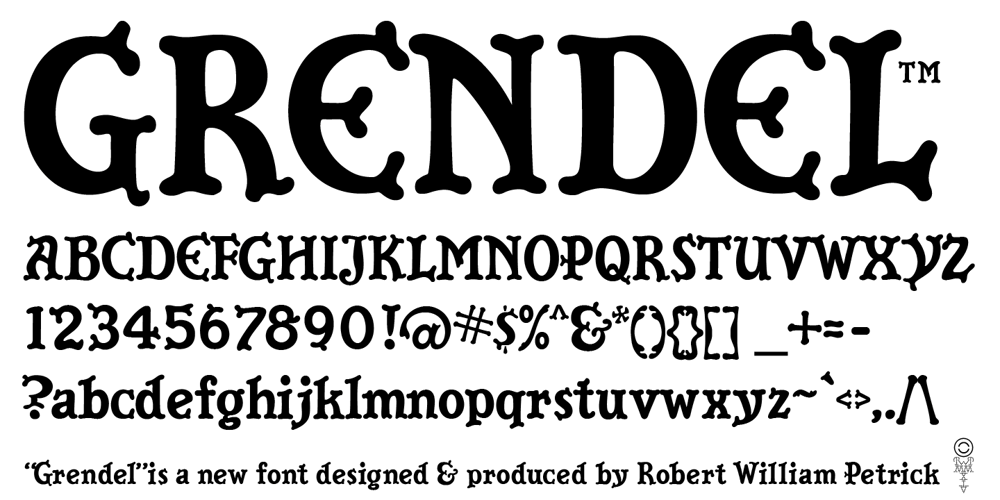
Grendel Regular
Grendel Regular font
Grendel Regular Font Family was designed by Robert Petrick and published by Robert Petrick. Grendel Regular contains 1 styles and family package options. “Grendel Regular” Evolved out of a hand lettering piece I designed for a record album (Royal Crescent Mob). Inspired by old gothic forms, my intention was to create a playful letter form that could be used in an antique as well as a modern context such as food product packaging or fun video projects, etc.